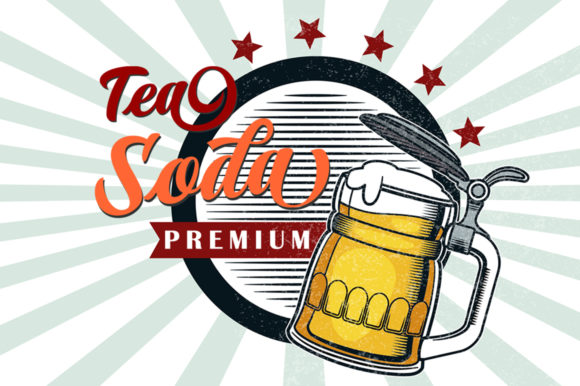
Limited Softness Font  Font
Limited Softness is a beautiful script font. It features a natural calligraphy style and gorgeous swashes. Fall in love with its authentic feel and use it to create gorgeous wedding invitations, beautiful stationary art, eye-catching social media posts, and cute greeting cards.